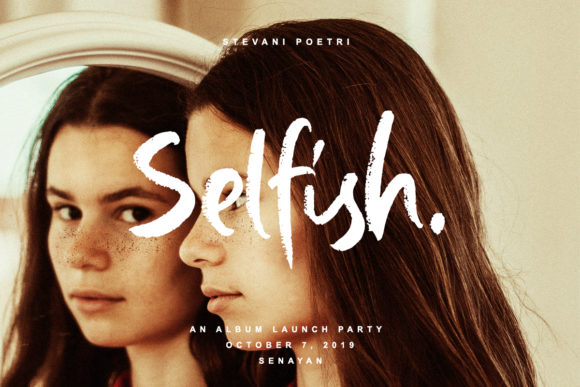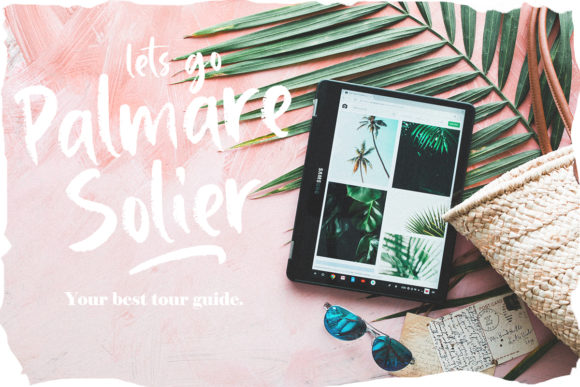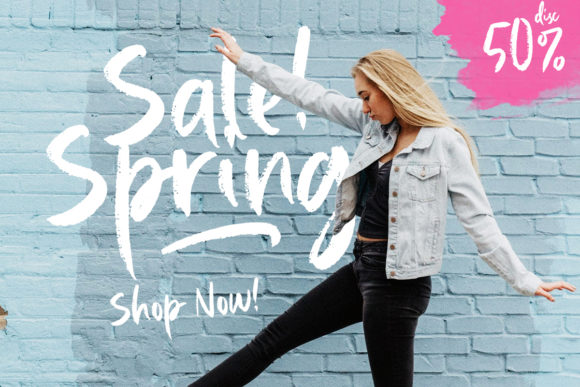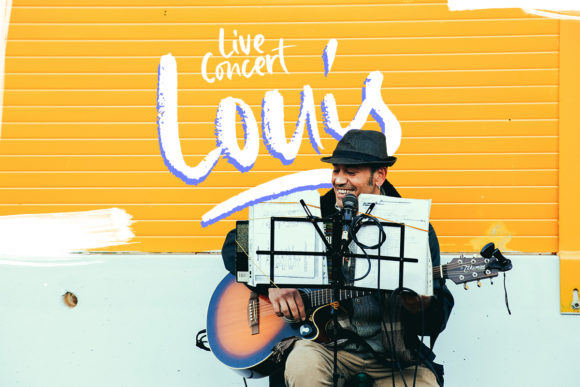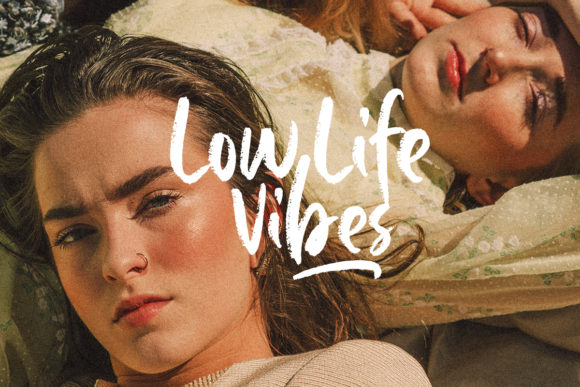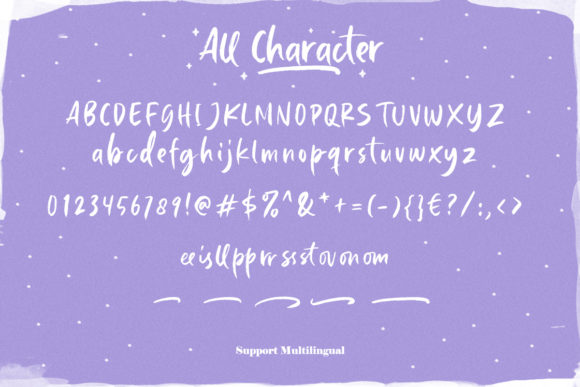
Adding a Touch of Elegance to Your Designs
There’s nothing quite like the feeling of bringing a design to life – the spark of inspiration, the hours of creative tinkering, and the final result that makes your heart skip a beat. For designers, it’s the little moments like these that make all the hard work worth it.
When it comes to adding a touch of elegance to your designs, few fonts are as versatile and charming as the Baille Simpson Font. This stylish script font is perfect for wedding invitations, thank you cards, quotes, and every other design that needs a handwritten touch. With its delicate curves and refined lines, the Baille Simpson Font is a valuable addition to any designer’s toolkit, offering a level of sophistication and refinement that’s hard to find elsewhere.
Baille Simpson Font Key Features
- Unique Characteristics: Baille Simpson Font features a unique, hand-drawn design with subtle imperfections, giving it a distinctive and human touch.
- Font Style: The font is available in a single style, with a mix of serif and sans-serif elements, making it versatile and suitable for various design applications.
Baille Simpson Font Review
The Baille Simpson font is a beautiful, elegant script font that can add a touch of sophistication to any design project. ✨ Its flowing lines and organic feel make it perfect for creating a sense of luxury and refinement.
- ✨ Elegant and sophisticated design
- ✨ Perfect for creating a sense of luxury and refinement
- ✨ Suitable for a wide range of design projects, including logos, branding, and typography
However, there are a few limitations to consider.
- ⚠️ Limited character set, may not be suitable for extended text
- ⚠️ May not be legible at very small font sizes
- ⚠️ Some users may find the font too ornate or distracting
Overall, the Baille Simpson font is a beautiful and sophisticated addition to any design library. While it may have some limitations, it is well-suited for a wide range of design projects and can add a touch of elegance and refinement to any design.
Getting the Most Out of Baille Simpson Font
To get the most out of Baille Simpson font, use it for:
- Emphasizing important text
- Creating a unique and modern look
Baille Simpson font is commonly used for:
- Print and digital advertising
- Editorial and
Alternatives to Baille Simpson Font for Designers
The Great Vibes Font is a modern, elegant script font that is perfect for creating a sophisticated and professional look. It’s ideal for use in logos, branding, and titles where a touch of elegance is needed.
Comparison to Baille Simpson Font: While both fonts have a similar script style, Great Vibes Font is more refined and polished, making it a better choice for high-end designs. Baille Simpson Font, on the other hand, has a more playful and casual feel.
The Alex Brush Font is a beautiful, handwritten script font that is perfect for creating a warm and inviting atmosphere. It’s ideal for use in packaging, advertising, and editorial design where a personal touch is needed.
Comparison to Baille Simpson Font: While both fonts have a similar handwritten feel, Alex Brush Font is more expressive and emotional, making it a better choice for designs that require a personal touch. Baille Simpson Font, on the other hand, is more neutral and versatile.